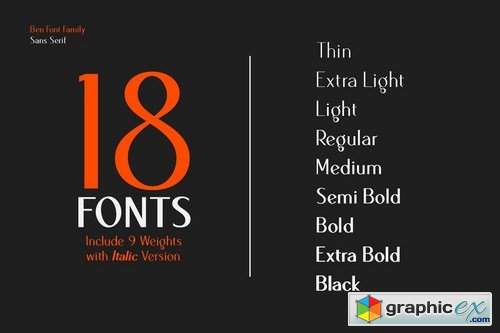
Ben Sans Serif Family
Ben is a simple sans serif font that we made for use on projects that require a touch of elegance. We believe simplicity is the ultimate form of sophistication and give all the idea to Ben. This font is a mirror of our personality.